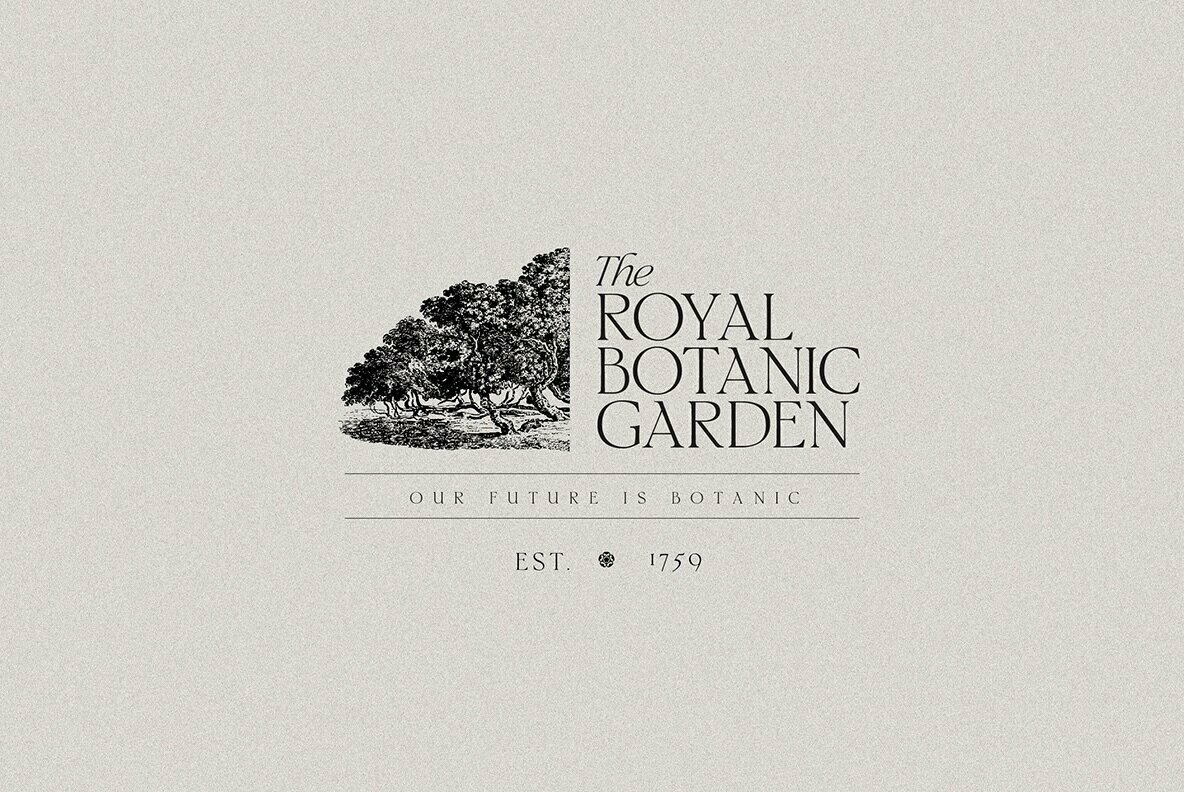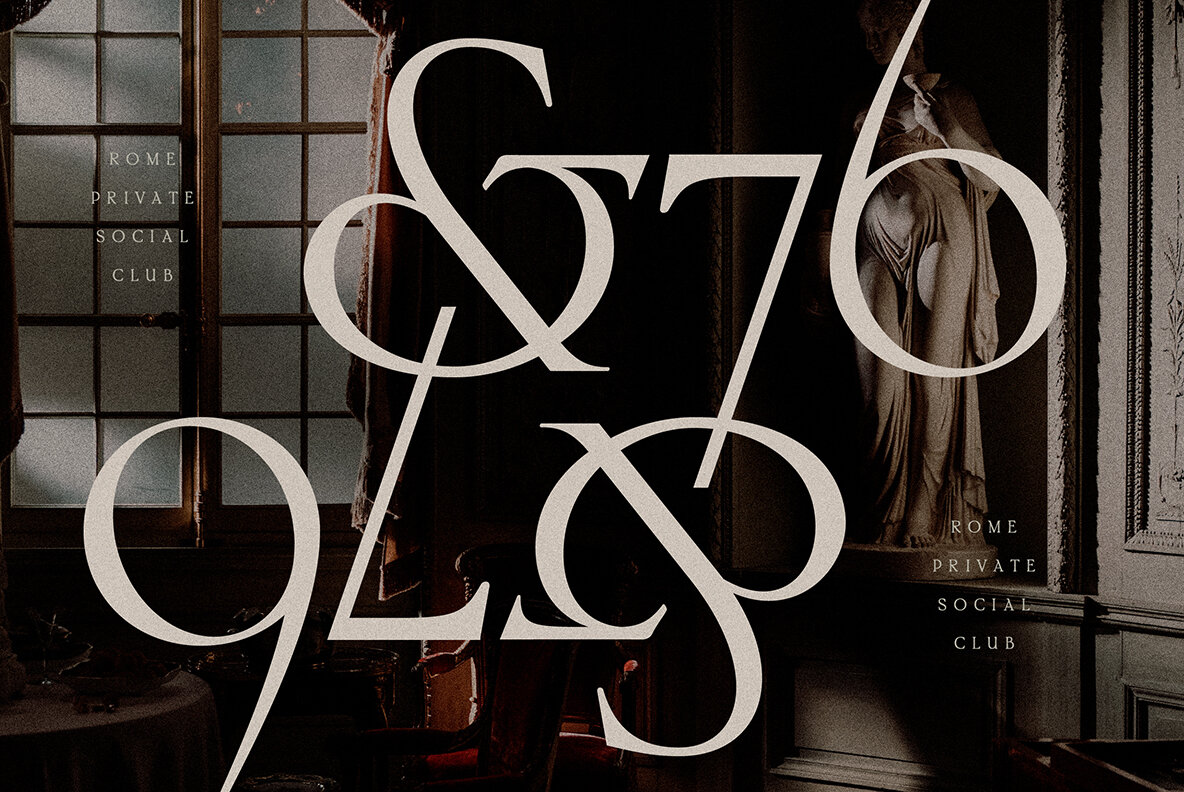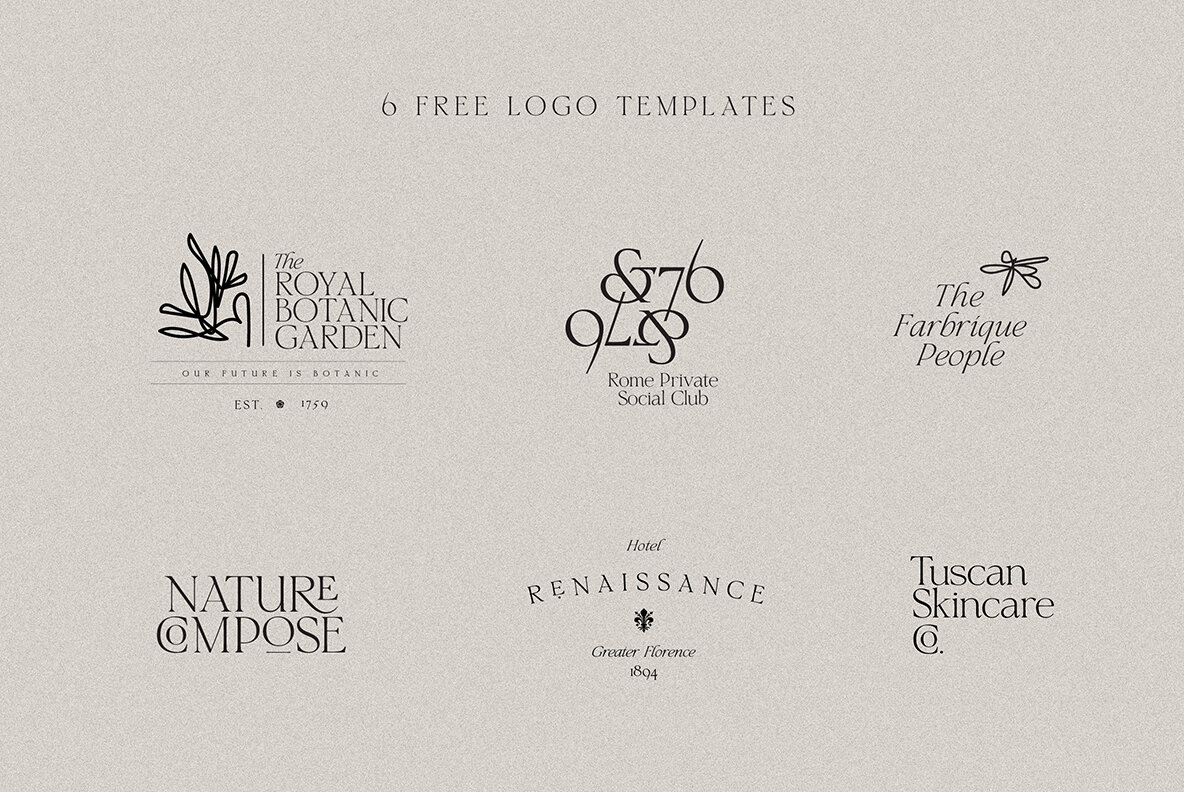
Florentino Font
Florentino is a Renaissance Era calligraphic-inspired serif with a touch of elegance. Specially designed for retro, elegant projects, Florentino is perfectly suitable for creating classic designs such as logos, packaging, editorial, and more. 6 free logo templates